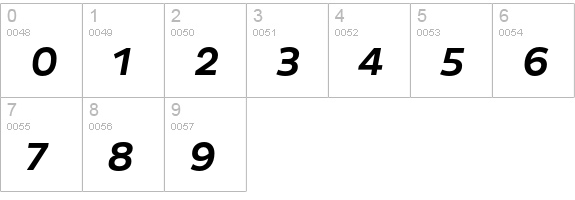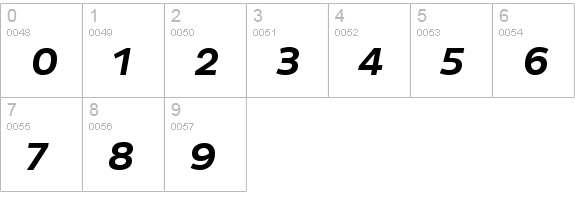
Introducing Pluto Medium Italic font - a versatile and modern typeface that strikes the perfect balance between professionalism and creativity. With its sleek and elegant design, Pluto Medium Italic is the ideal choice for a wide range of projects, from branding and advertising to web design and editorial content. This font features a unique italic style that adds a touch of sophistication and flair to any text. Its medium weight makes it easy to read while still retaining a sense of style and personality. Whether you're designing a business card, creating a logo, or crafting a poster, Pluto Medium Italic is sure to make your text stand out. And the best part? Pluto Medium Italic is completely free to download at FontsMarket.com. Yes, you read that right - you can get your hands on this stunning font without spending a dime. So why wait? Add Pluto Medium Italic to your font collection today and take your designs to the next level.